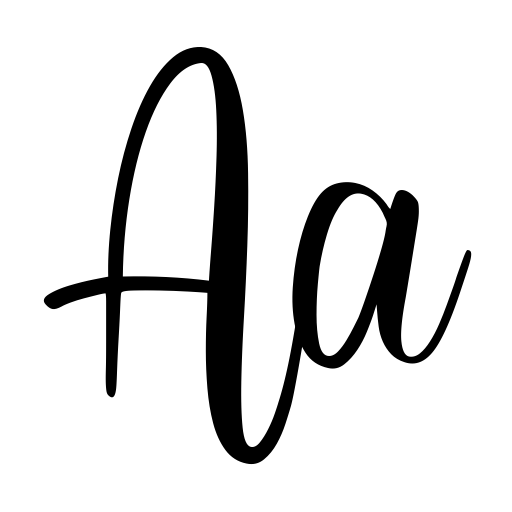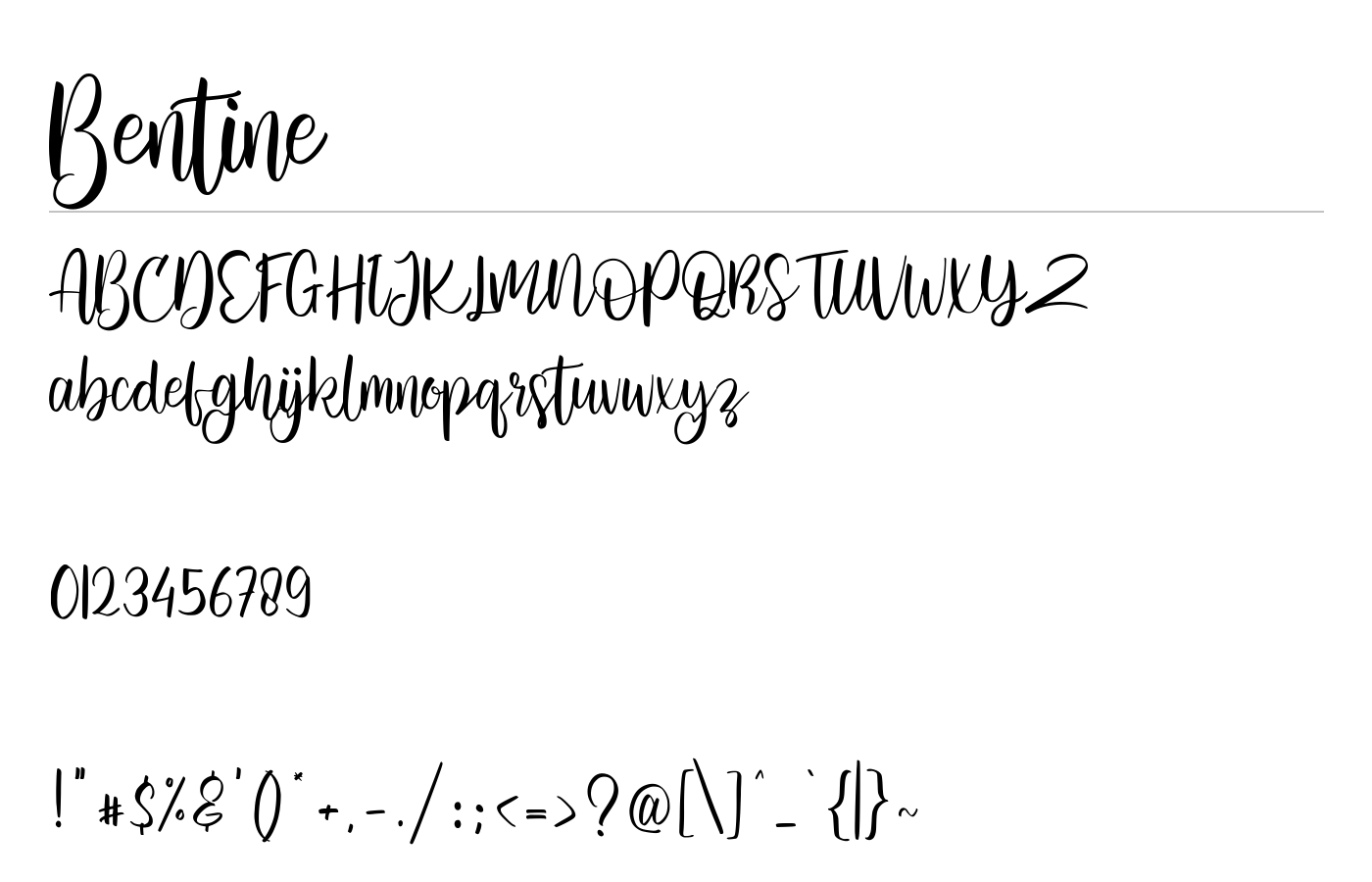
Bentine is a playful and elegant handwritten script font featuring tall, slender letterforms with smooth, flowing strokes and subtle variations in thickness. Its casual yet refined style, with distinctive loops and gentle curves, makes it perfect for creative branding, invitations, and feminine design projects that seek a friendly, personal touch. This font works well for headlines and decorative text where a charming and approachable aesthetic is desired.
Bentine Font
About Bentine Font